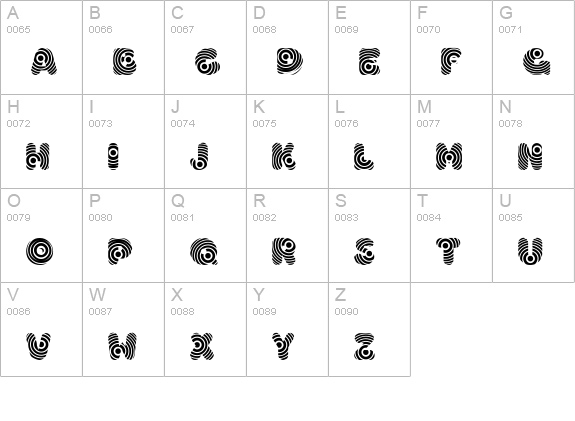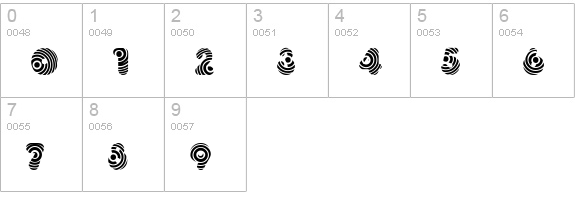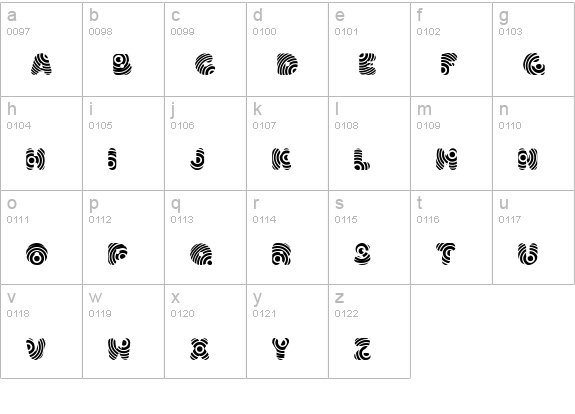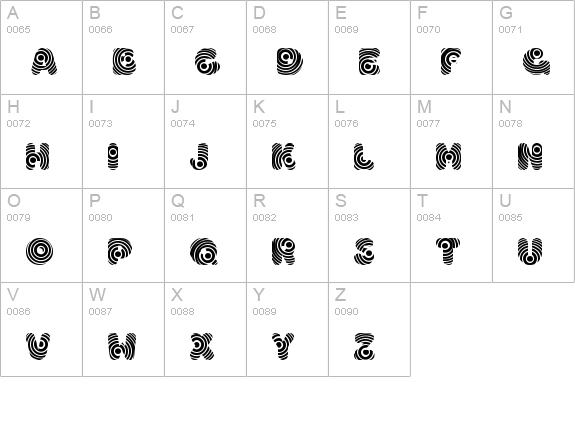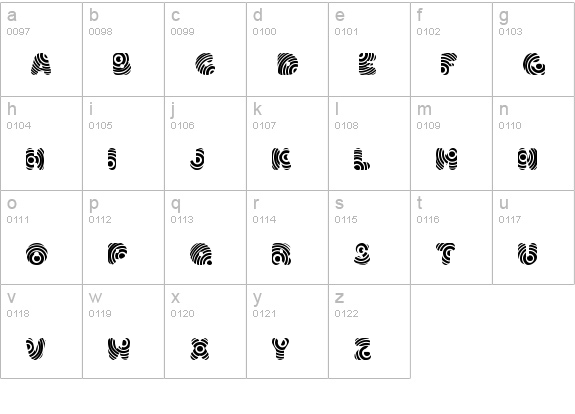
Hypmotizin Font Details
Hypmotizin font is a mesmerizing typeface that effortlessly blends elegance with a touch of whimsy. Its fluid lines and graceful curves create a sense of movement and rhythm on the page, making it perfect for projects that require a modern and dynamic look. Whether you're designing invitations, branding materials, or social media graphics, Hypmotizin font will captivate your audience and leave a lasting impression. And the best part? Hypmotizin font is completely free to download at FontsMarket.com! This means you can add this stunning font to your collection without breaking the bank. With its versatility and charm, Hypmotizin font is sure to become a go-to choice for all your creative endeavors. Download it today and let your imagination run wild with endless design possibilities.